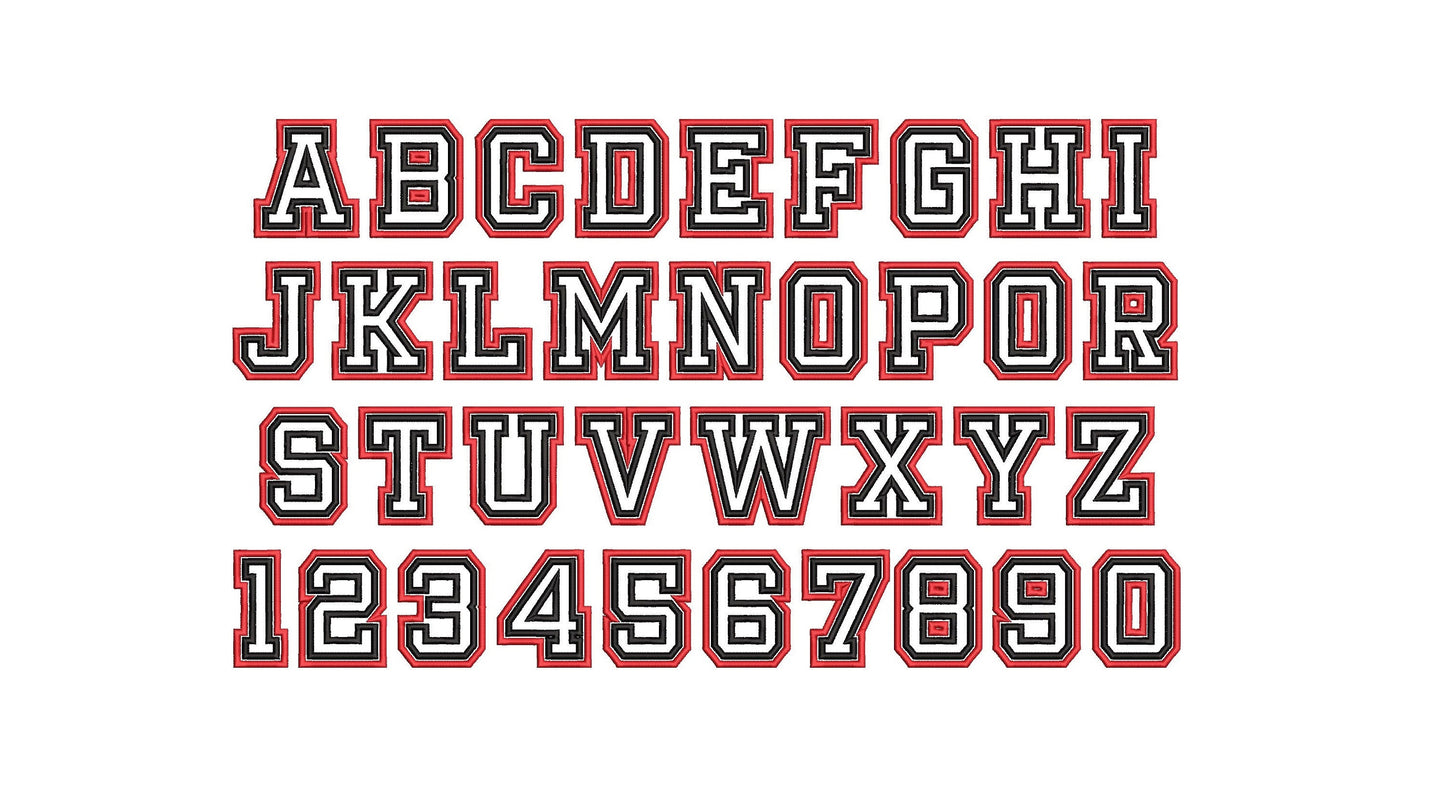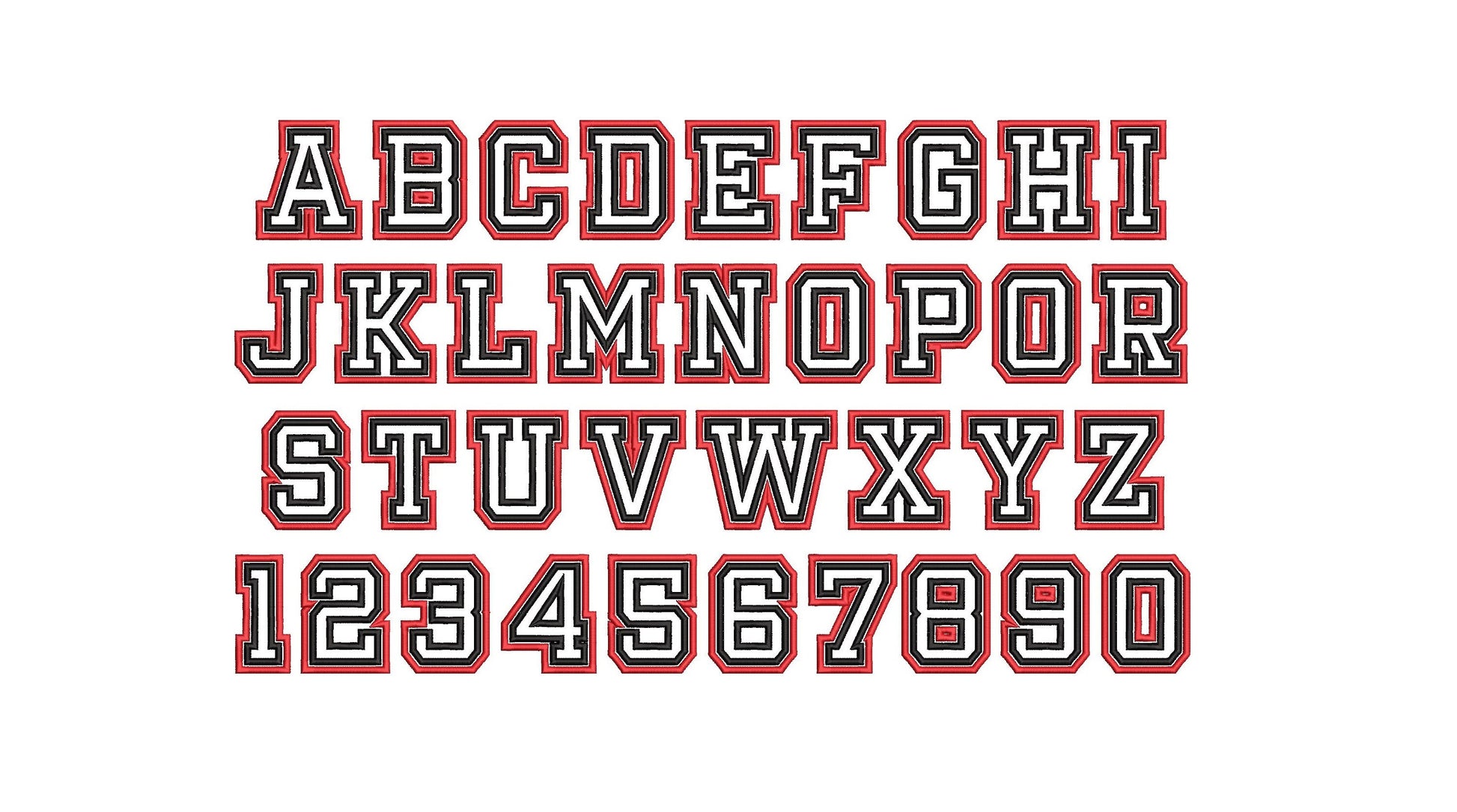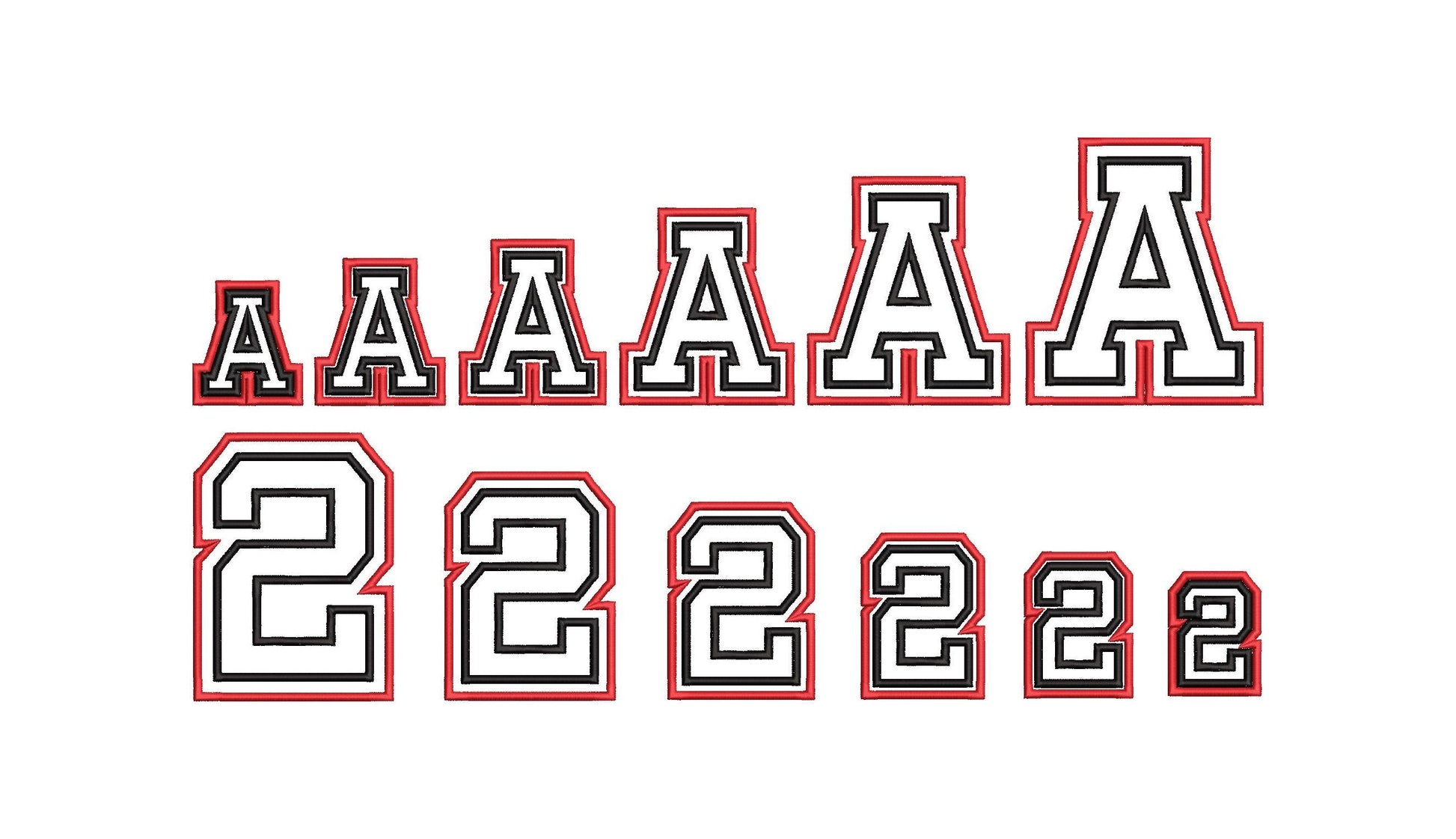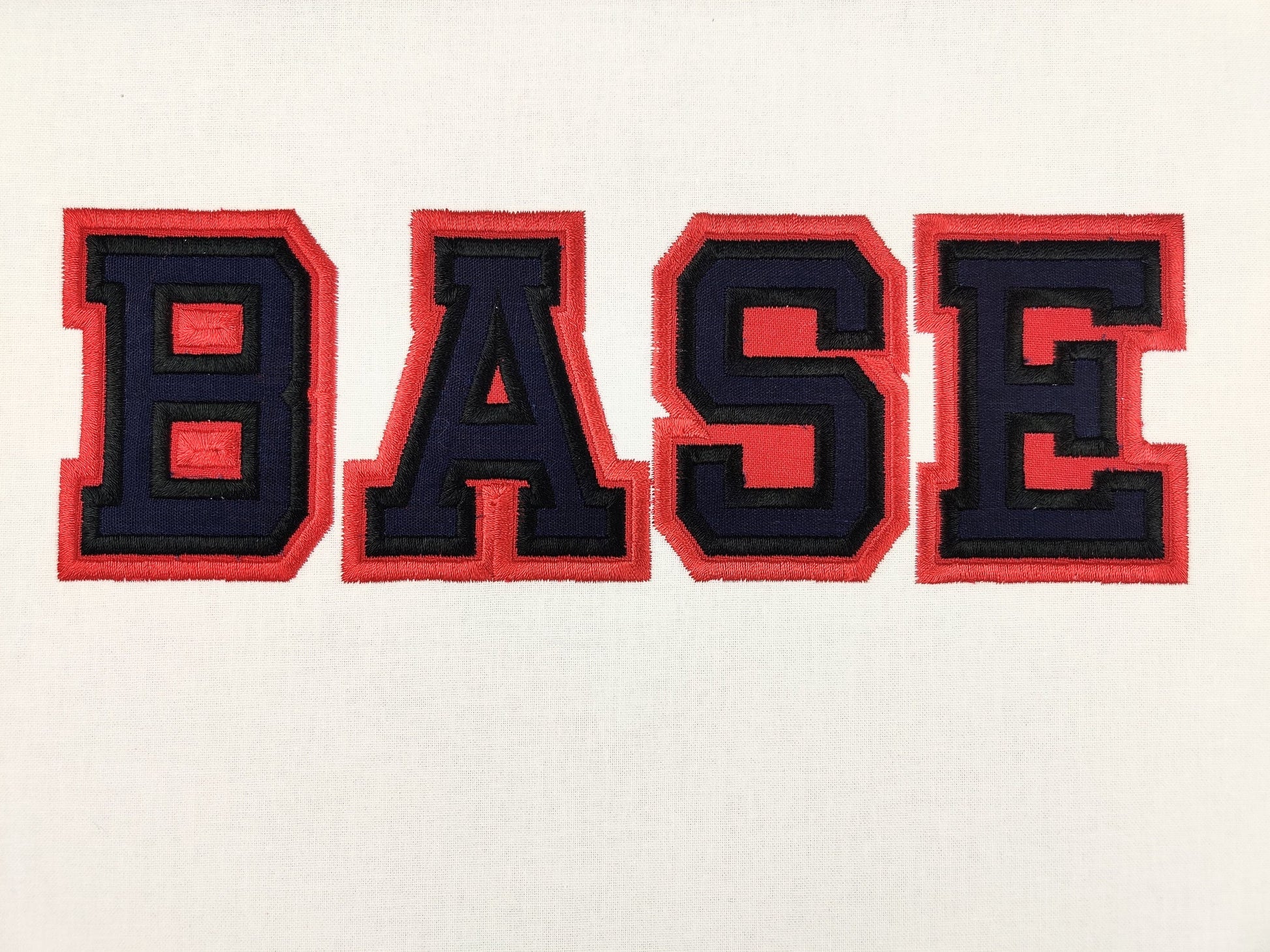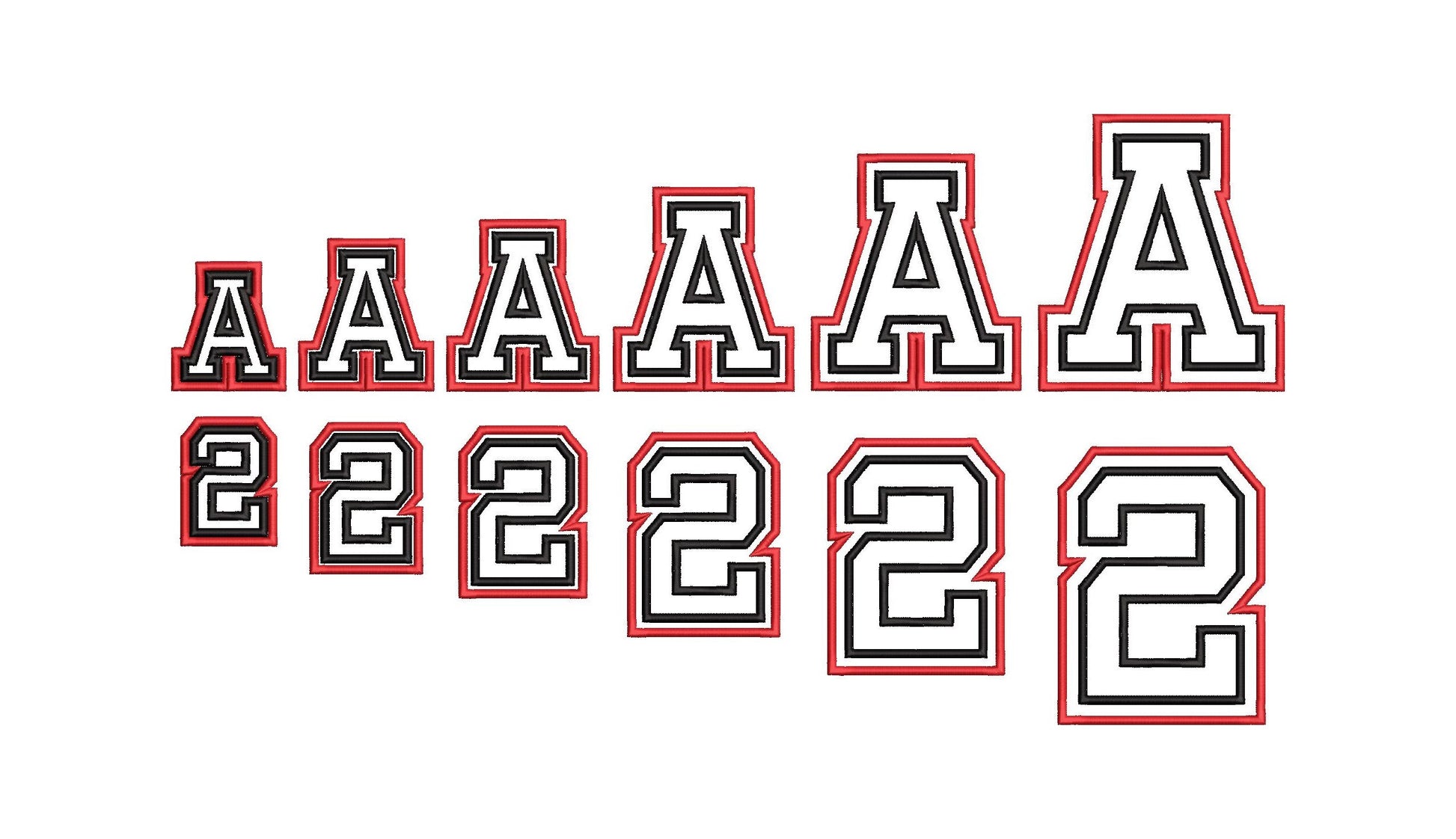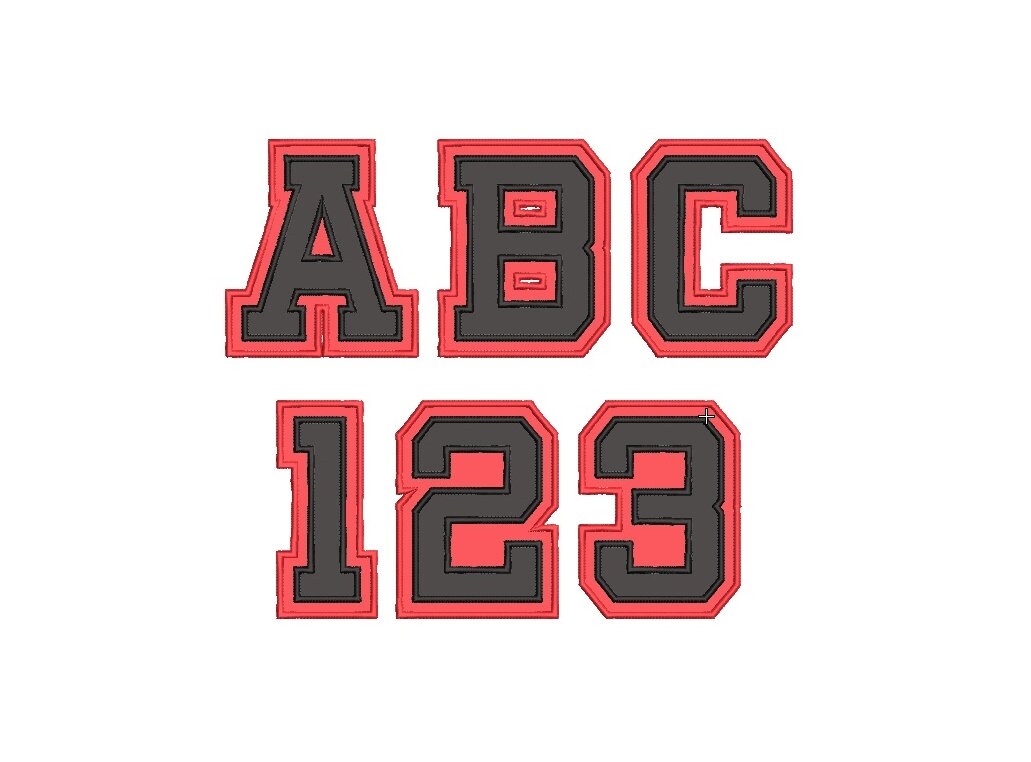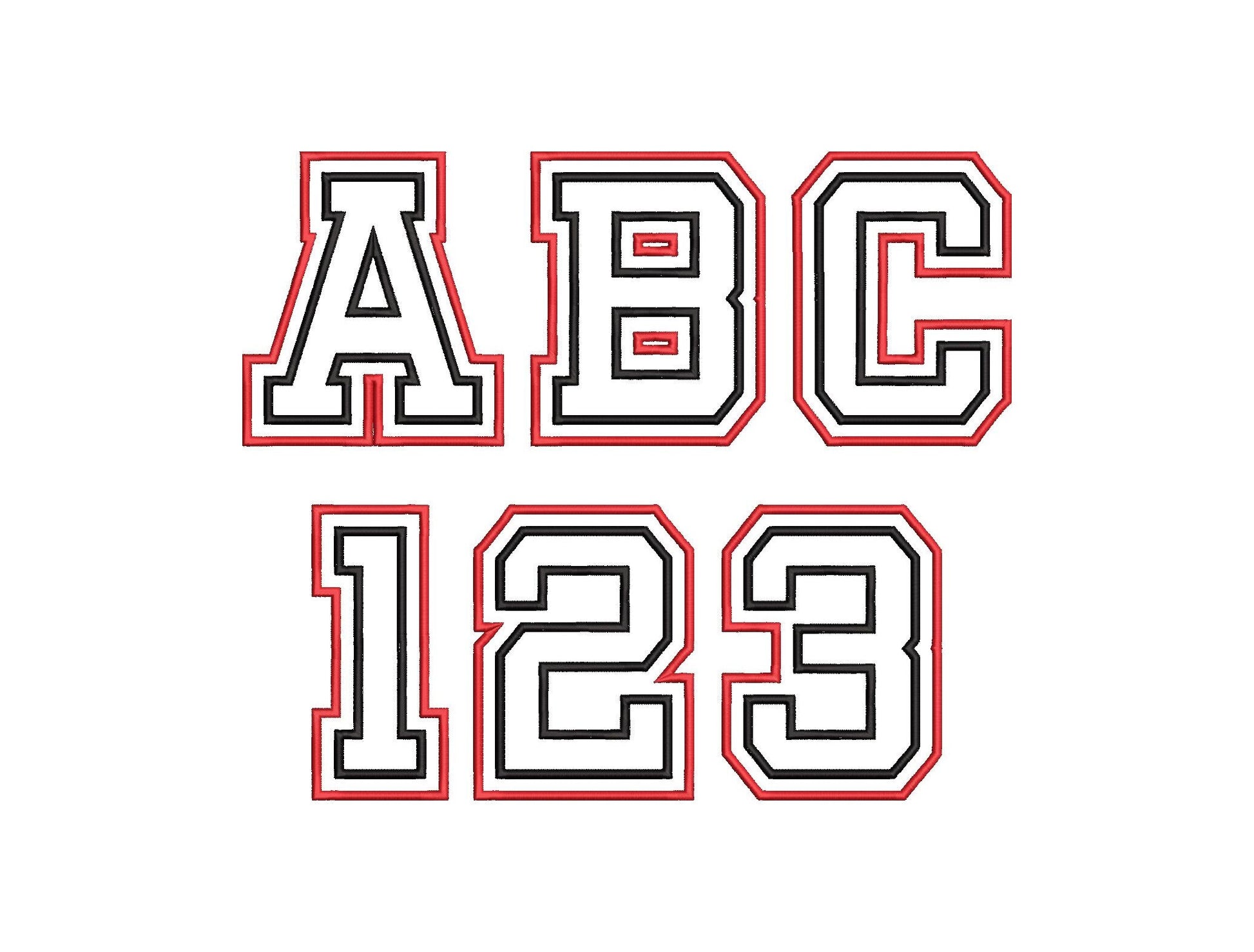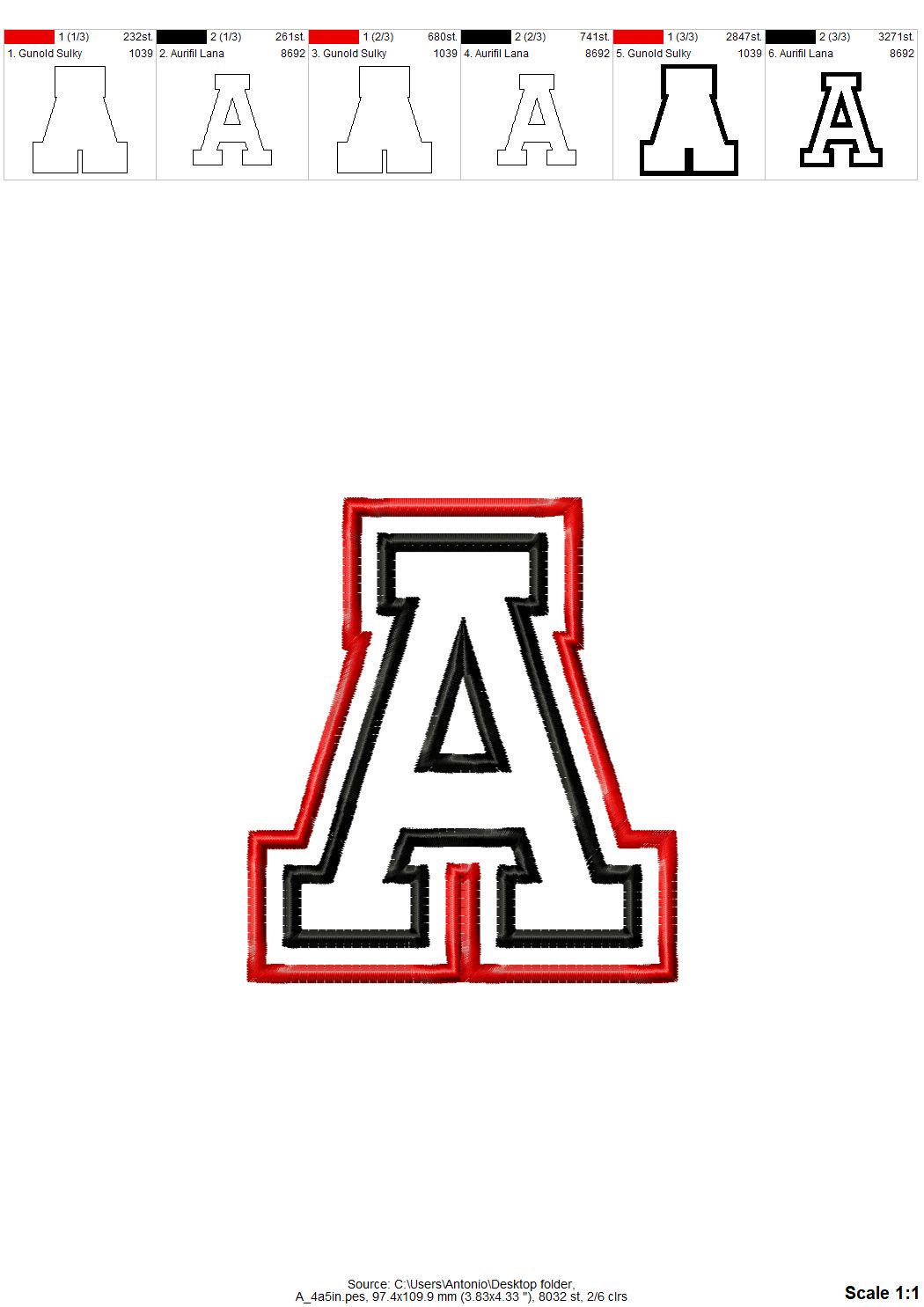
Two Layers Double Applique and Outline Athletic Sport High School Team
Included: Uppercase A-Z, Numbers 0-9
An athletic font in two applique layers with a satin outline, for team names and numbers on jerseys, hoodies and bags.
Two applique layers give a double outline, like classic team lettering. Capital letters A to Z and numbers 0 to 9 in six sizes: 2.5, 3, 3.5, 4, 4.5 and 5 inches.
• Two-layer athletic applique font
• Uppercase A-Z and numbers 0-9
• 6 sizes, 2.5 to 5 in